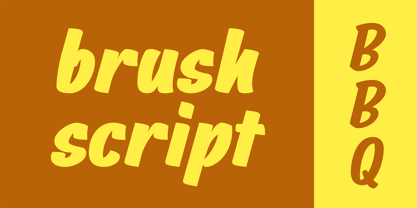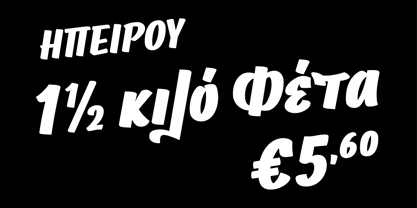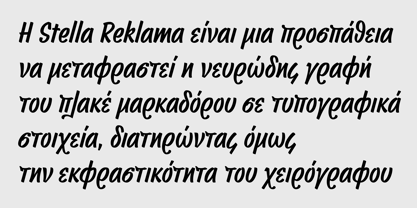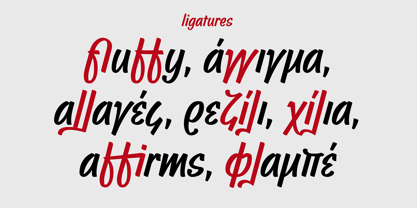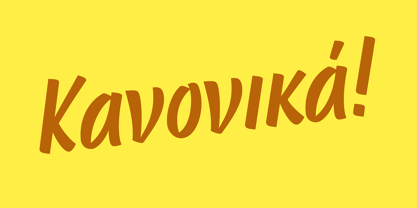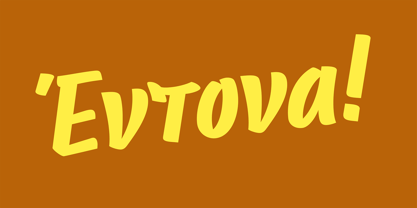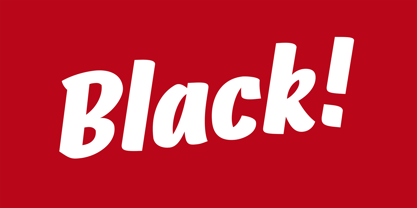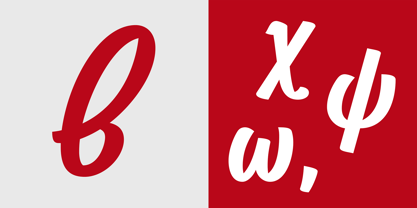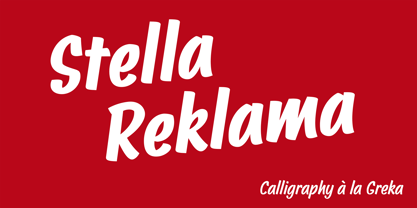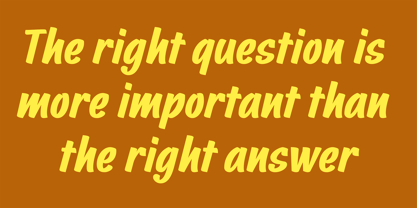
Stella Reklama
The Stella Reklama Font Family was designed by Panos Haratzopoulos, Yannis Karlopoulos and published by Fonts.GR. Stella Reklama contains 3 styles and family package options. More about this family
Stella Reklama, the second typeface of the Stella Project, is an attempt to adapt the wiry stroke of the flat marker to typographic letters, while preserving the expressiveness of the script. The type was designed to work even in small sizes, but its idiosyncratic forms and some subtle details, such as the tear-like endings, become more interesting at large sizes. Stella Reklama consist of three weights: regular, bold & black. Thus, it is versatile, and suitable for any need of typographic communication, regardless of size or scale.
Stella Reklama is part of Stella Project - Calligraphy à la greka, an attempt to study the forgotten art of greek calligraphy that flourished from the ’50s through the ’70s – an indirect conversation with the colleagues of the past. It’s a study on the tools and techniques of the time, a work of classification, documentation and adaptation of these special styles to modern media and communication tools.